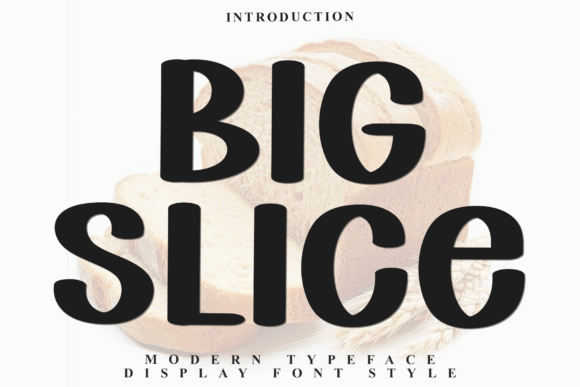
The Magic of Big Slice Font: Elevate Your Holiday Designs
It’s that time of the year again – the holiday season is just around the corner, and with it comes the pressure to create stunning designs that capture the spirit of the festivities. I still remember the year I was tasked with designing a Christmas card for a client’s family reunion. I spent hours scouring the internet for the perfect font, but nothing seemed quite right. That was until I stumbled upon Big Slice Font. With its whimsical flair and decorative elements, it instantly brought my design to life. In this article, we’ll dive into the world of Big Slice Font and explore its features, uses, and alternatives.
A Personal Review of Big Slice Font
As a designer, I’m always on the lookout for fonts that can add a touch of magic to my projects. Big Slice Font definitely delivers. Here’s what I love about it:
- ✨ Festive and merry vibe that’s perfect for holiday designs
- ✅ Whimsical flair that adds a touch of enchantment to your words
- 📚 Perfect for greeting cards, gift tags, and holiday-themed projects
Of course, no font is perfect, and Big Slice Font has a few small quirks:
- 🤔 May not be suitable for formal or professional designs
- ⚠️ Limited use outside of the holiday season (but you can always get creative with it!)
The Story Behind Big Slice Font
Big Slice Font was designed by a team of creative typographers who wanted to capture the spirit of the holiday season in a font. Inspired by vintage holiday cards and festive decorations, they created a font that’s both whimsical and elegant. The result is a font that’s perfect for adding a touch of magic to your holiday designs.
| Font Name | Big Slice Font |
| What is Big Slice Font? | Big Slice Font is a festive and merry typeface that’s perfect for holiday designs. |